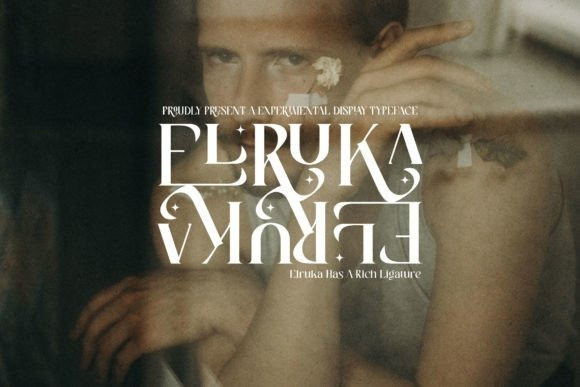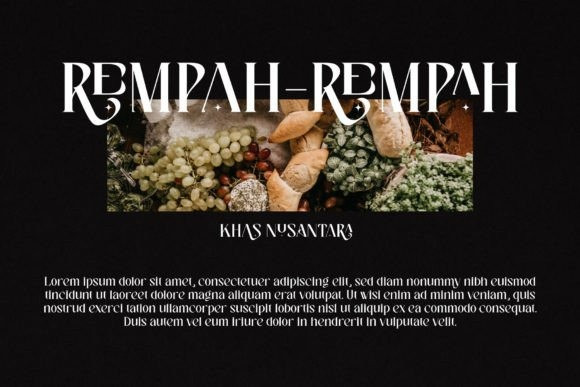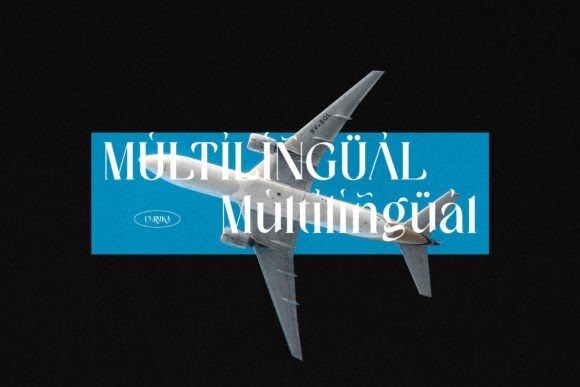
Elruka Font
Elruka is a serif font. It has a classy and modern look that can be used for logos, branding, invitations, stationery, wedding designs, social media posts, and much more!